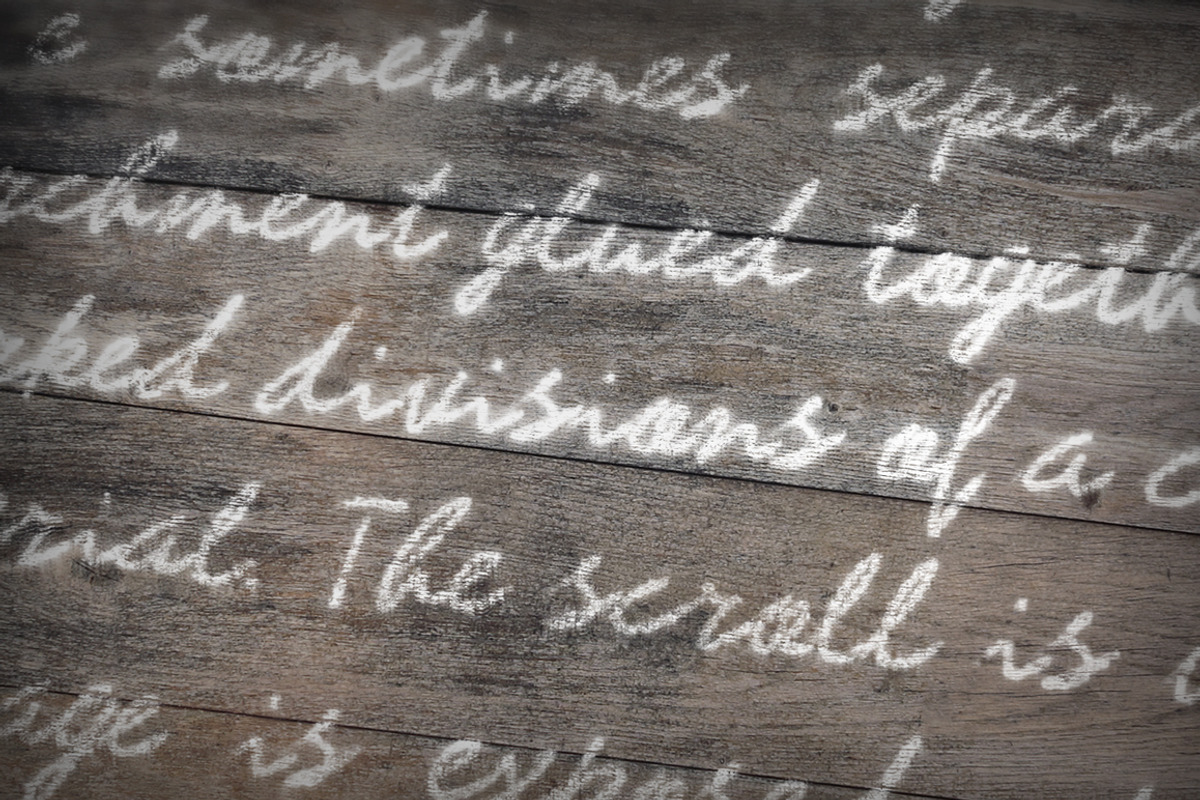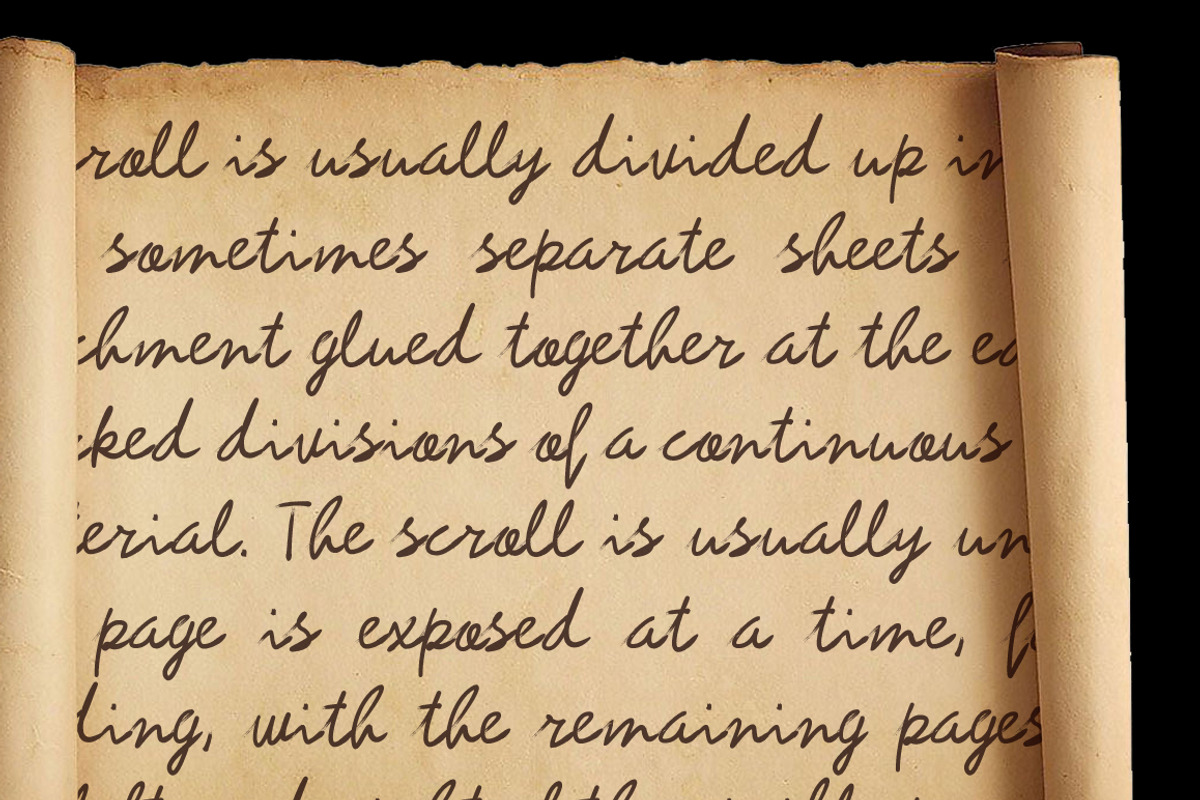
Hemiyong TrueType Font
Hemiyong TrueType Font by alphadesign is a font selected for branding, posters, packaging, typography.
- Hemiyong Regular
Why Hemiyong TrueType Font is worth a look
Hemiyong TrueType Font by alphadesign fits naturally into Branding, posters, packaging, typography.